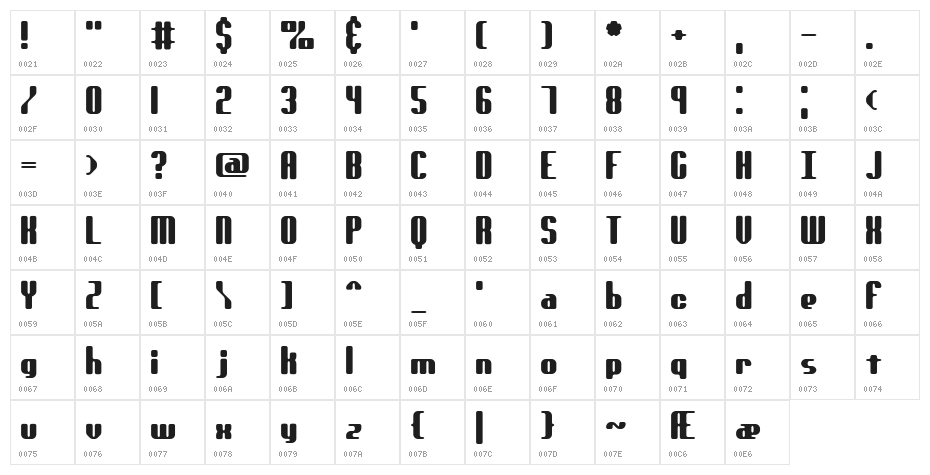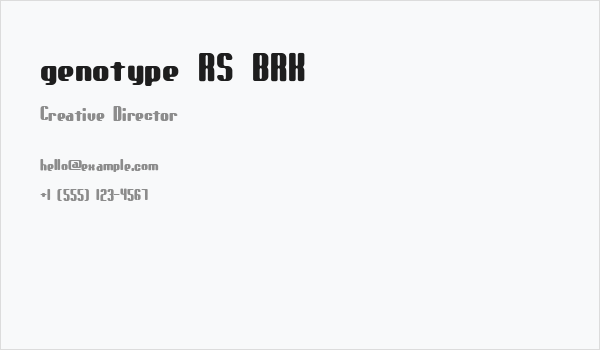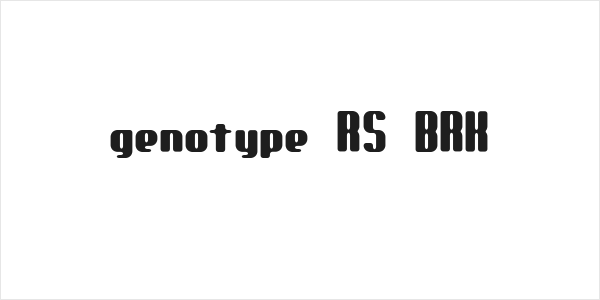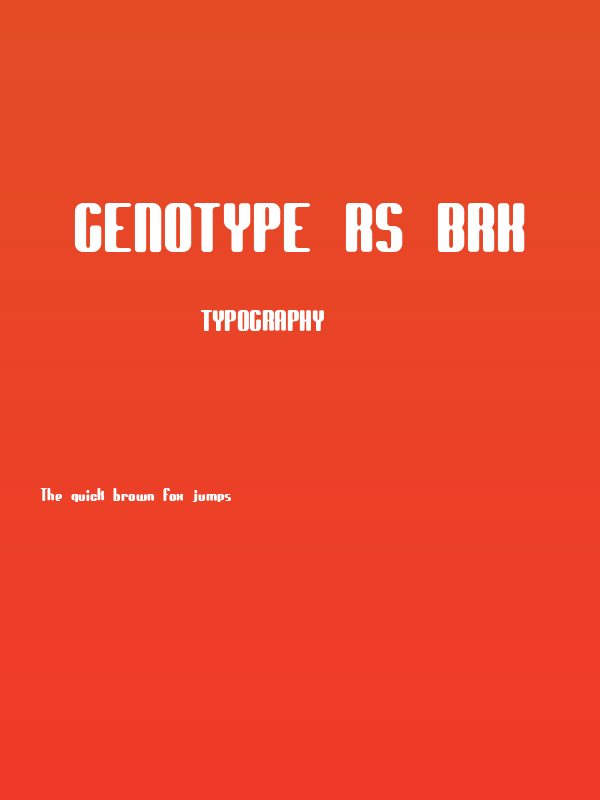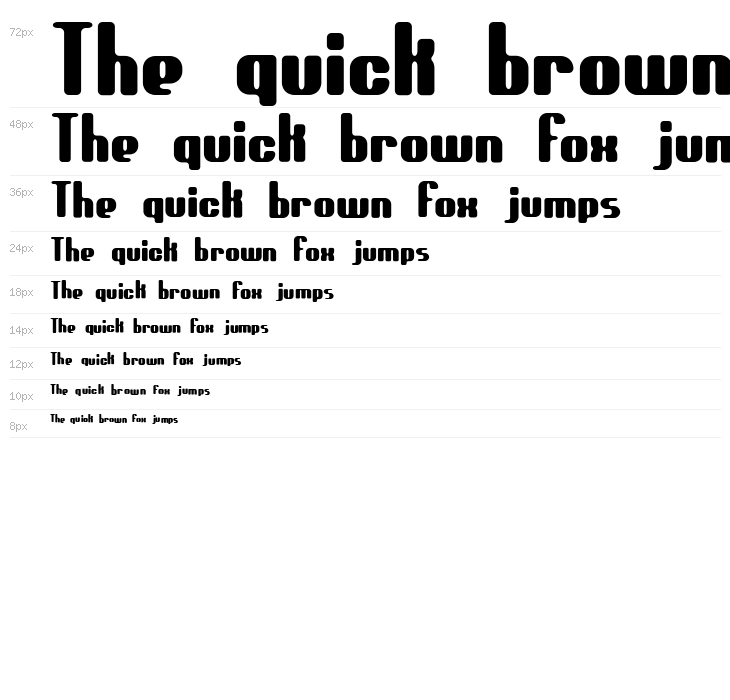
genotype RS BRK Font
genotype RS BRK Description
This font features a bold and robust design with a distinctly modern and industrial feel. The characters are uniformly thick, with rounded edges that soften the otherwise strong and impactful appearance. The uppercase and lowercase letters maintain a consistent style, with the lowercase letters slightly more compact. Numbers and special characters follow the same bold and rounded aesthetic, ensuring a cohesive look across all glyphs. The font's unique style makes it stand out, offering a blend of modernity and readability, suitable for various creative applications.
| Proposed Projects | Ideal for branding, posters, headlines, and any project requiring a modern and bold statement. |